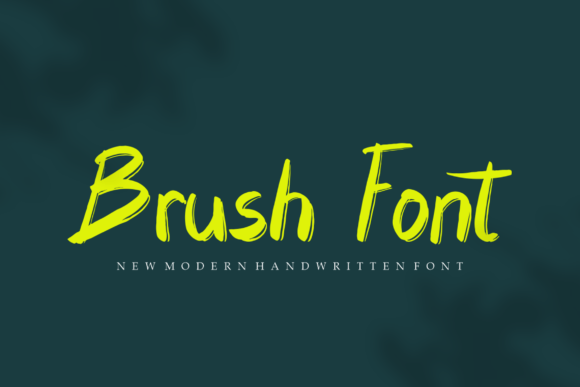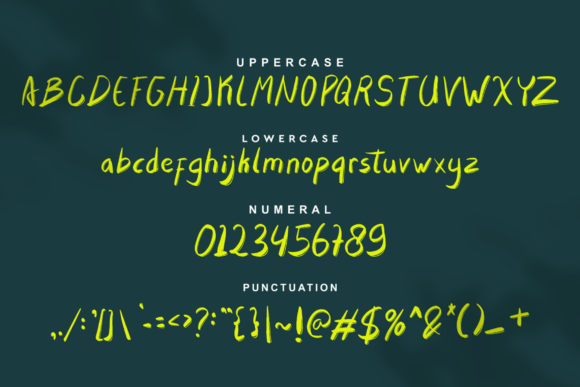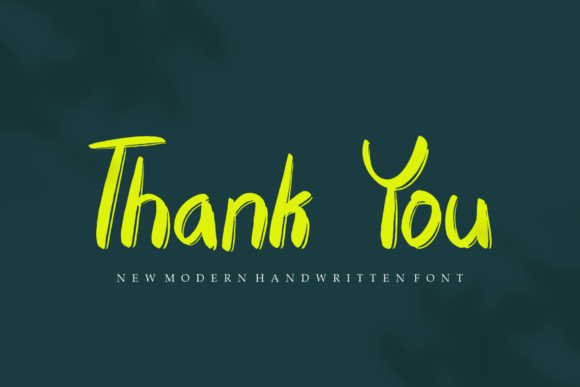
Zonester Font
About Zonester Font
Introducing Zonester, a cool and modern handwritten brush font that adds a contemporary flair to your projects. Confidently include this font in your designs, and you’ll be astounded by the impactful outcome it generates.
The brush style of Zonester brings a dynamic and stylish look to your text. Whether you’re using it for digital design, branding, posters, product packaging, or any creative project, Zonester is crafted to make a statement.
Consider using Zonester to create eye-catching posters with a modern edge, design impactful branding materials, or add a cool touch to product packaging. The versatility of this handwritten brush font allows it to adapt seamlessly to different design contexts, making it a valuable asset for your creative toolkit.
Let Zonester be the font that adds a contemporary and dynamic vibe to your projects. With its cool and modern style, it has the potential to elevate your designs and make a lasting impression on your audience.